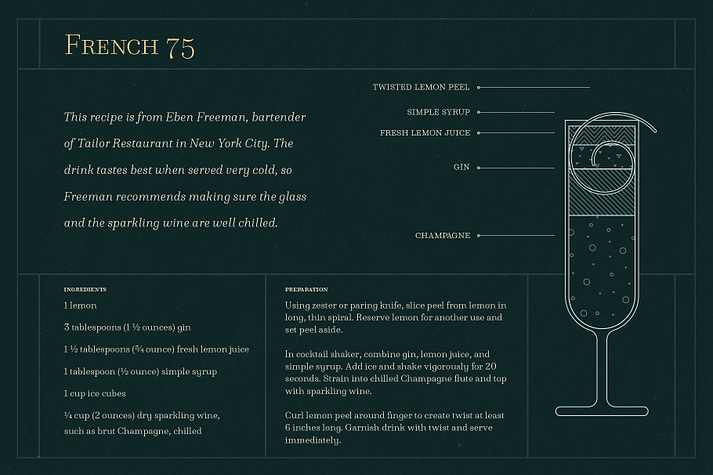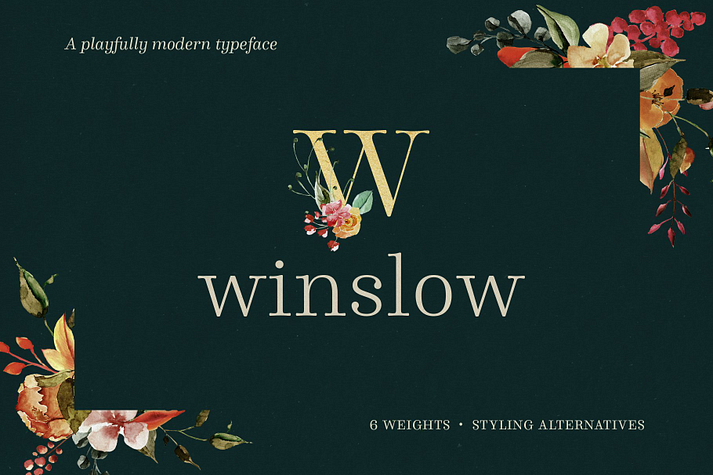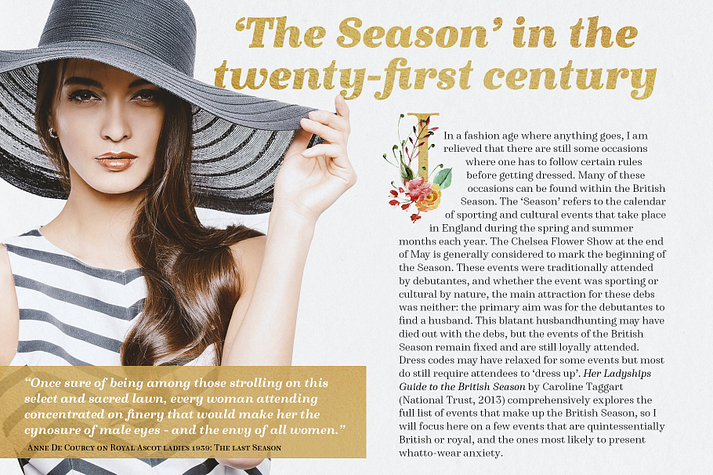
Winslow Book
Designed by Kimmy Kirkwood, Winslow Book is a serif font family. This typeface has twelve styles and was published by Kimmy Design.
Winslow Book is a playfully modern typeface with 6 weights and packed with styling features. Delicate features give it a playful feel while keeping Scotch Modern attributes of vertical stress, bracket serifs and ball terminals. Unique features separate it from others in the category, including ball terminals on the roman ’s’ and a slight swelling in the serifs. Winslow was designed to be a perfect typeface for text and display purposes.
Because optionality is always fun, Winslow comes with an array of alternative features that add and extra bit of flare. From stylistic alternatives to tail serifs (in K, k, d, h, m, n) to complete new character designs (for g, y and &) a designer can choose between which style they need for any project. Discretionary ligatures also create alternatives to all capital letter combinations.
The family also comes with a playful set of italics that compliment the roman and come with their own set of alternatives.
Typeface Family:
• Winslow Book Hairline
• Winslow Book Hairline Italic
• Winslow Book Light
• Winslow Book Light Italic
• Winslow Book Regular
• Winslow Book Regular Italic
• Winslow Book SemiBold
• Winslow Book SemiBold Italic
• Winslow Book Bold
• Winslow Book Bold Italic
• Winslow Book Black
• Winslow Book Black Italic
Alternatives:
• Stylistic alternatives for both roman and italic
• Discretionary ligatures for capital letters
• Start swashes for capital letters
• Alternative ampersands